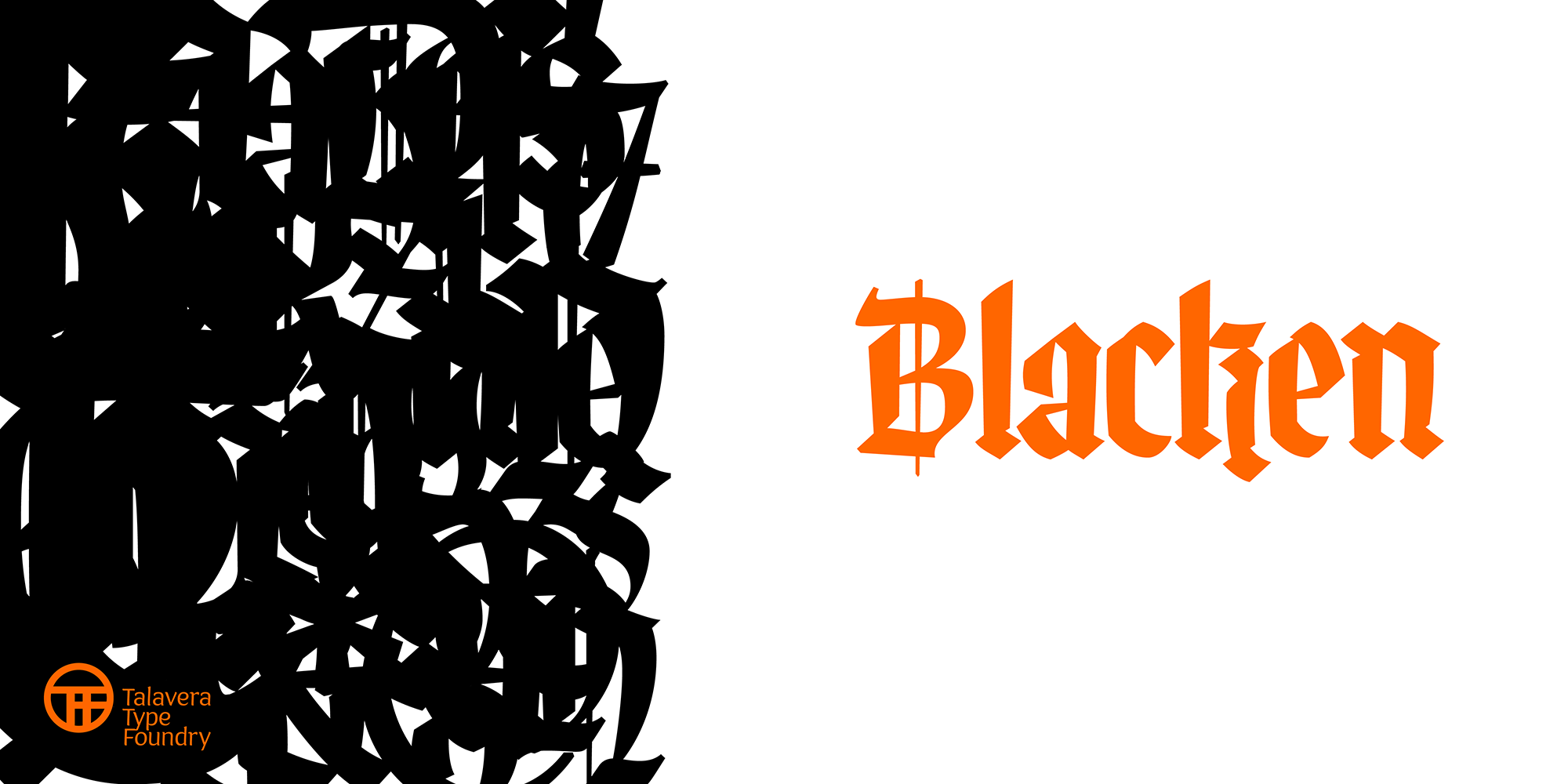
Blacken Font is perfect for intense horror movie titles, dark metal band logos, dramatic gothic branding, supernatural gaming interfaces, mysterious thriller promotions, occult-themed designs, sinister advertising campaigns, and atmospheric entertainment materials. This powerful typeface excels in applications requiring maximum darkness and intimidating presence that creates instant psychological impact and commands attention through pure visual intensity.
What makes Blacken Font exciting is its uncompromising darkness that channels pure intensity and psychological power through heavily weighted letterforms designed for maximum intimidation factor. The font features ultra-bold character construction with aggressive styling and commanding presence that instantly evokes feelings of mystery, power, and supernatural atmosphere perfect for brands seeking to establish dominant market presence through dark aesthetic appeal.
The Blacken Font family includes ultra-black weight with distressed and clean variations, offering designers comprehensive tools for creating intensely dark compositions. The family provides consistent heavy aesthetic with varying texture levels for versatile dark branding and atmospheric design projects requiring genuine intimidation factor and supernatural character appeal.
Blacken Font Free Download delivers exceptional value for designers working on dark, horror, or supernatural-themed projects requiring maximum visual intensity and psychological impact. Whether you're creating horror entertainment materials, dark fashion branding, metal music graphics, or atmospheric gaming interfaces, this font provides the intimidating character needed to dominate dark market segments and capture alternative audiences.
The powerfully weighted letterforms of Blacken Font ensure maximum impact while maintaining readability for dark atmospheric communications, making it suitable for both large displays and detailed dark themed applications. This intense typeface combines psychological darkness with modern usability standards for outstanding performance in contemporary design projects requiring genuine intimidation factor and commanding dark presence.